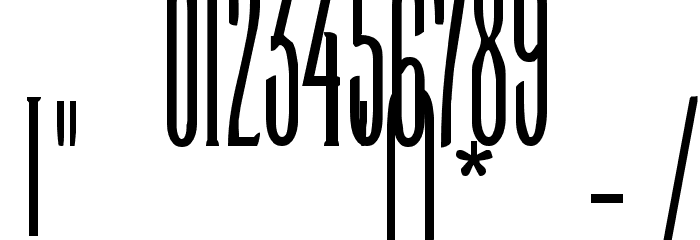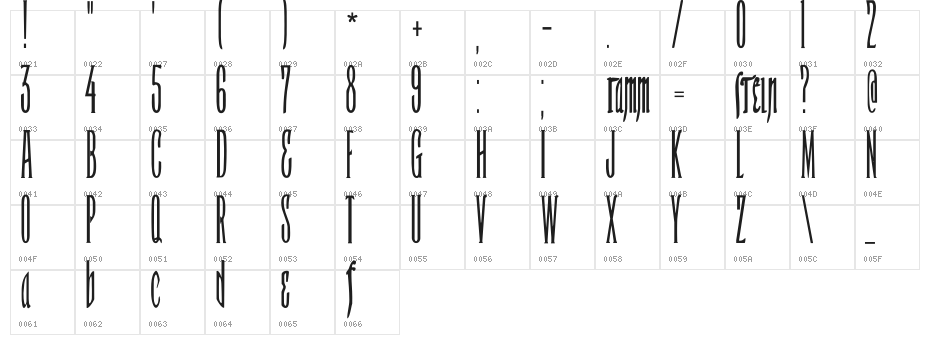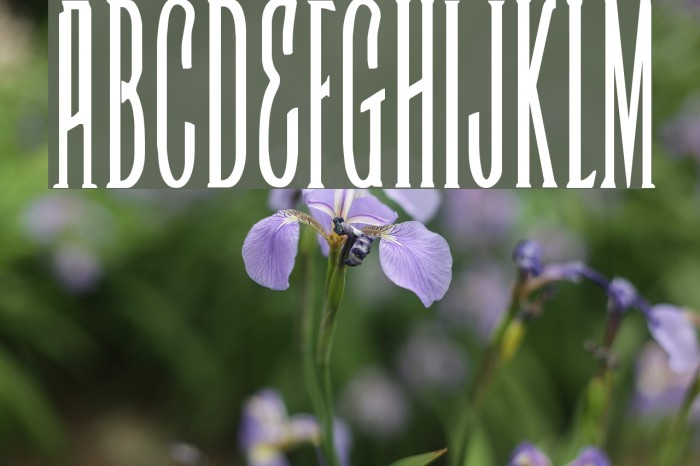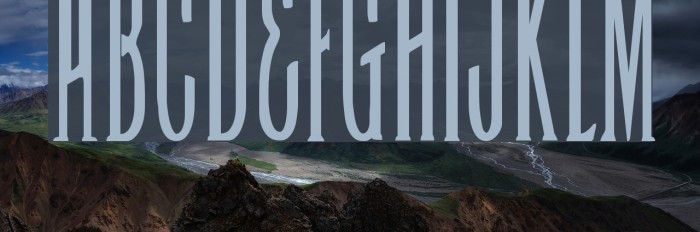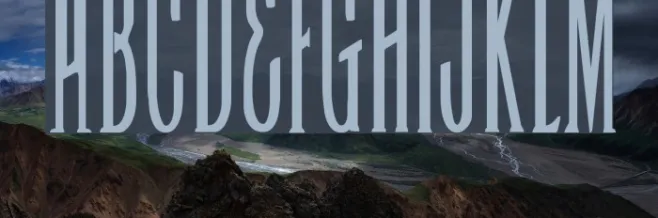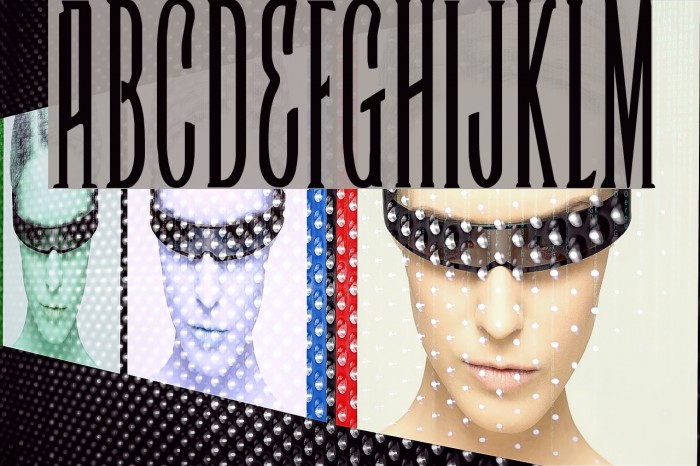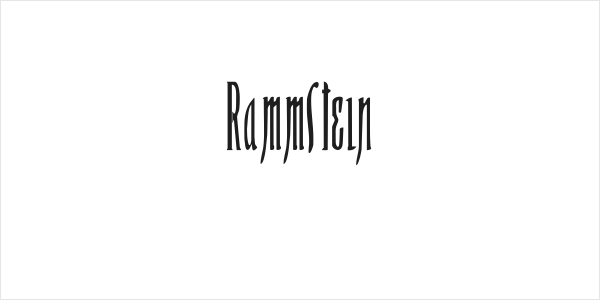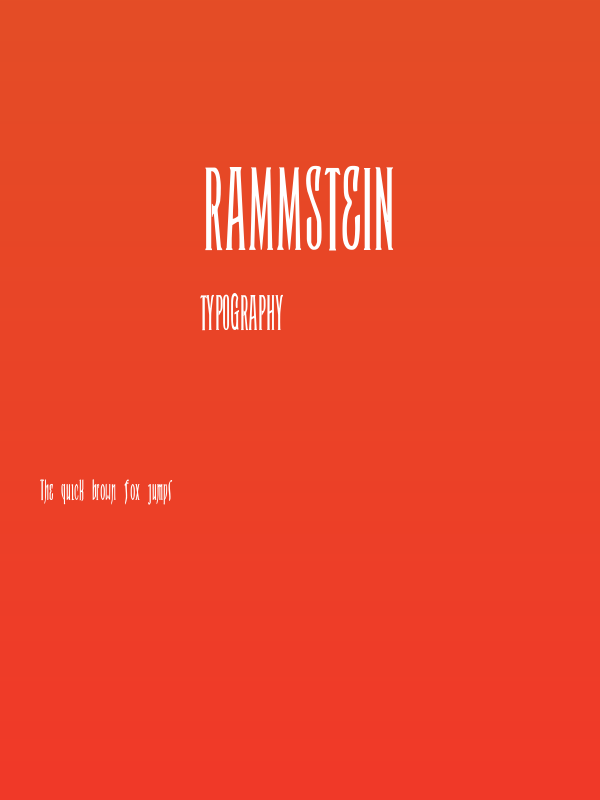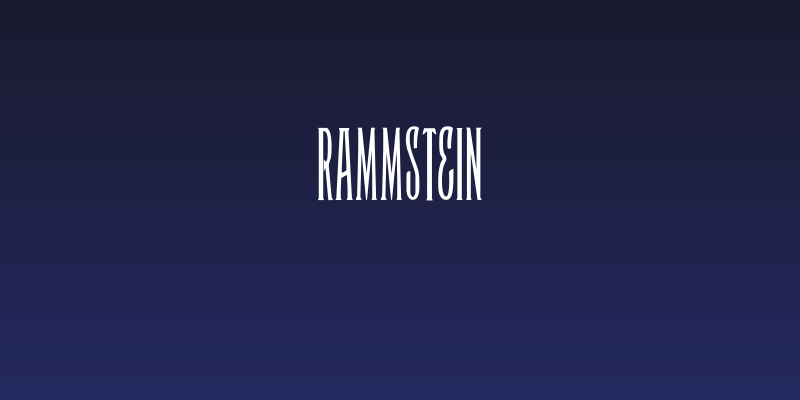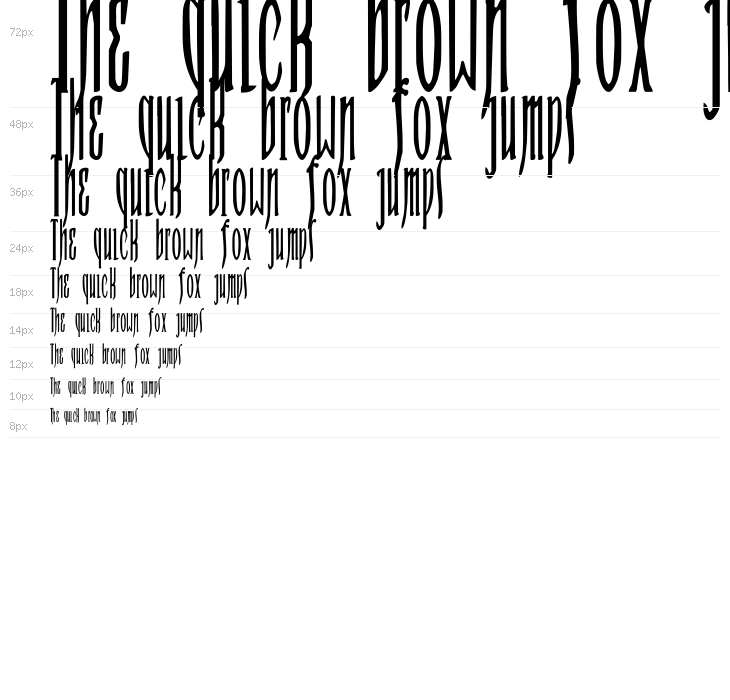
Rammstein Font
Rammstein Description
This font features an elongated and narrow design, characterized by tall, slender letterforms with a distinct vertical emphasis. The strokes are consistent in width, giving it a monoline appearance. The overall style is modern and somewhat industrial, with a clean and minimalist aesthetic. The characters are tightly spaced, enhancing the compact and streamlined look. This font is particularly striking in its uppercase letters, which dominate the design with their towering presence. The lowercase letters maintain the same narrow proportions, ensuring uniformity across the typeface. The numerals and special characters follow the same stylistic cues, making the font cohesive and versatile for various applications.
| Overall Style | Modern, Industrial |
| Proposed Projects | Ideal for use in posters, album covers, branding, and any project requiring a bold, modern typeface. |